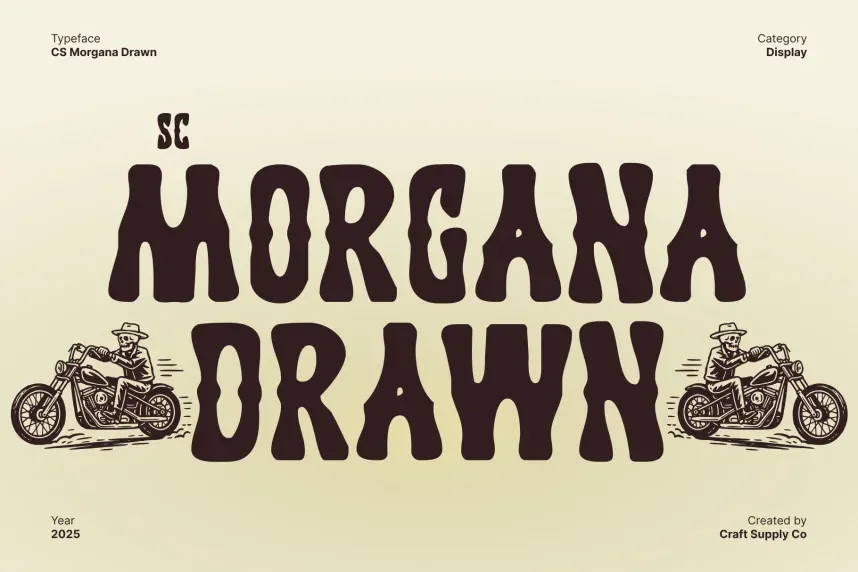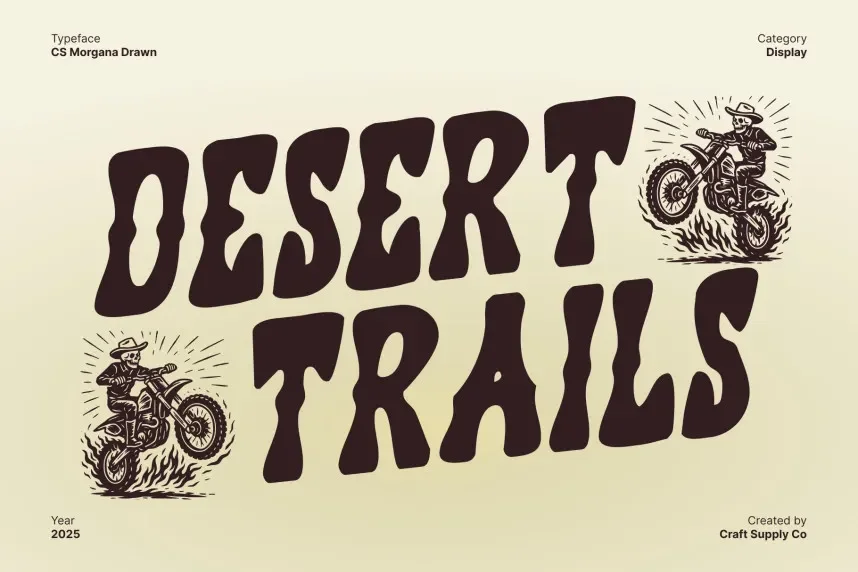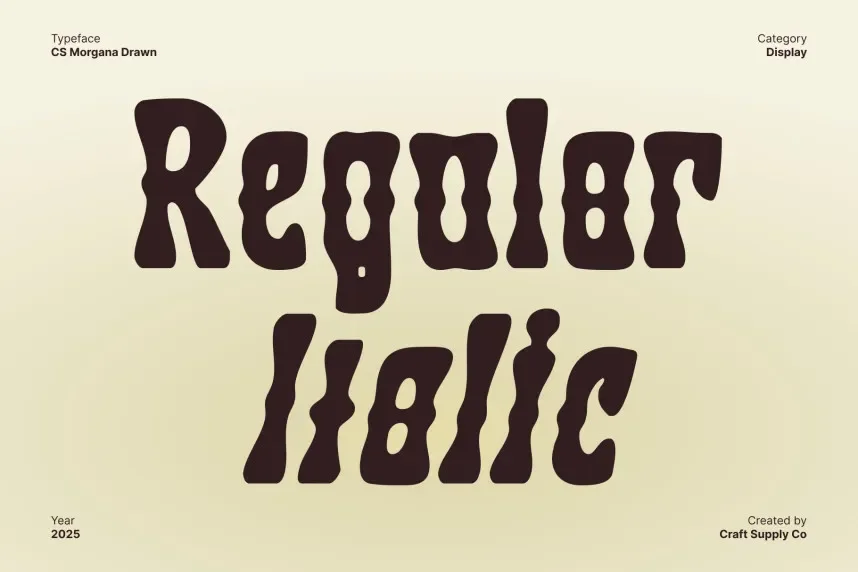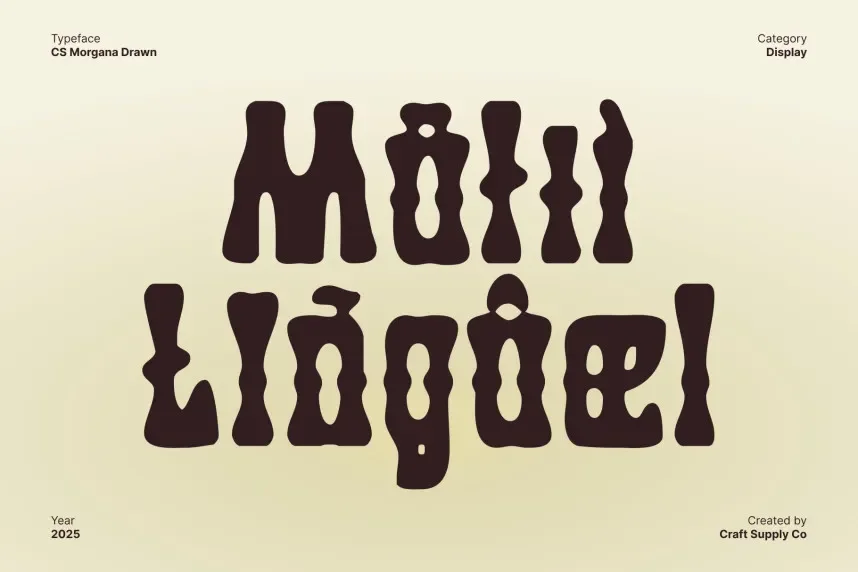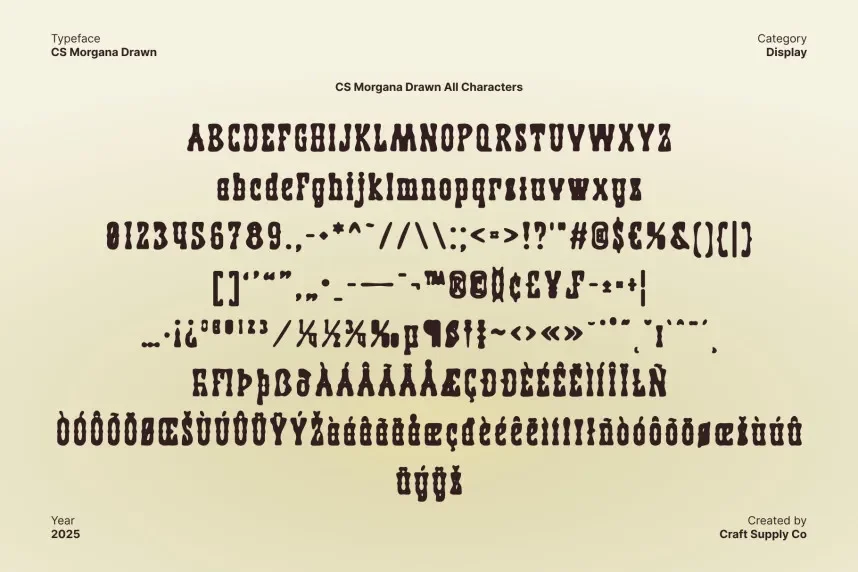
CS Morgana Drawn Font solves the problem of adding a playful, creative style to designs without losing clarity. It’s perfect for projects requiring a whimsical, fun feel while keeping text readable.
CS Morgana is a hand-drawn display font with dynamic, curving strokes and unique, playful shapes. Its character set is slightly irregular, giving it a handcrafted charm that works well in short headlines and creative visuals.